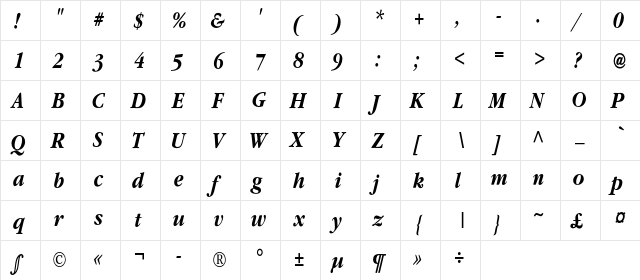
ClassicRussianC Bold Italic
Design Context for ClassicRussianC Typeface
ClassicRussianC has the warm character of retro typography — evoking diners, record sleeves, and the golden age of print advertising. The slanted form adds forward momentum and visual energy. Its bold stroke weight gives it real presence on the page.
Ideal for diner signage, record shop branding, 70s/80s-themed projects, and heritage product labels.
Font Pairing: Combine ClassicRussianC with a simple slab or neutral sans — period-accurate companions reinforce the vintage feel without competing for attention.
Pro Tip: Lean into ClassicRussianC's period character by pairing it with aged paper textures, muted colour palettes, and vintage illustration styles.